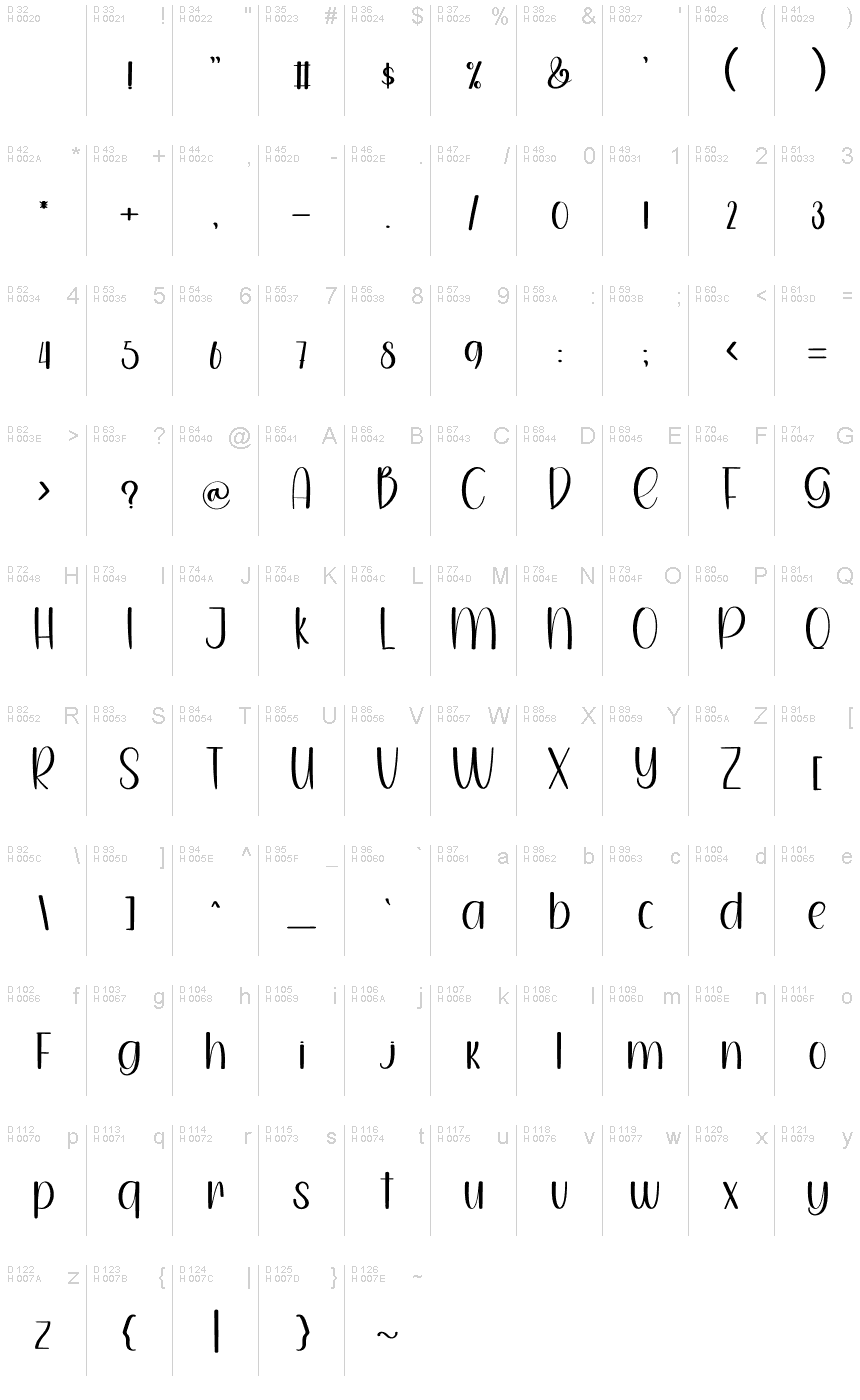
Baby Girl
Baby Girl, a charming creation by PiPi Creative, exudes a whimsical charm through its handwritten style. This semi-light font dances between casual elegance and playful warmth, boasting a semi-condensed width that allows for delightful readability without sacrificing its inviting character. With each stroke reflecting the personal touch of ink on paper, Baby Girl stands as an ideal choice for projects that call for intimacy and softness.
The font's aesthetic is both inviting and aesthetically pleasing, resonating well with designs that aim to be personable yet polished. Its handwritten nature lends authenticity to invitations, greeting cards, branding for boutique businesses, and any medium seeking to convey heartfelt messaging or artisanal quality.
Baby Girl's versatility shines in various creative contexts—its gentle curves and moderate weight make it suitable for longer texts while retaining legibility. Whether employed in digital graphics or print media, this font is poised to add a touch of handcrafted sincerity to your creative endeavors.